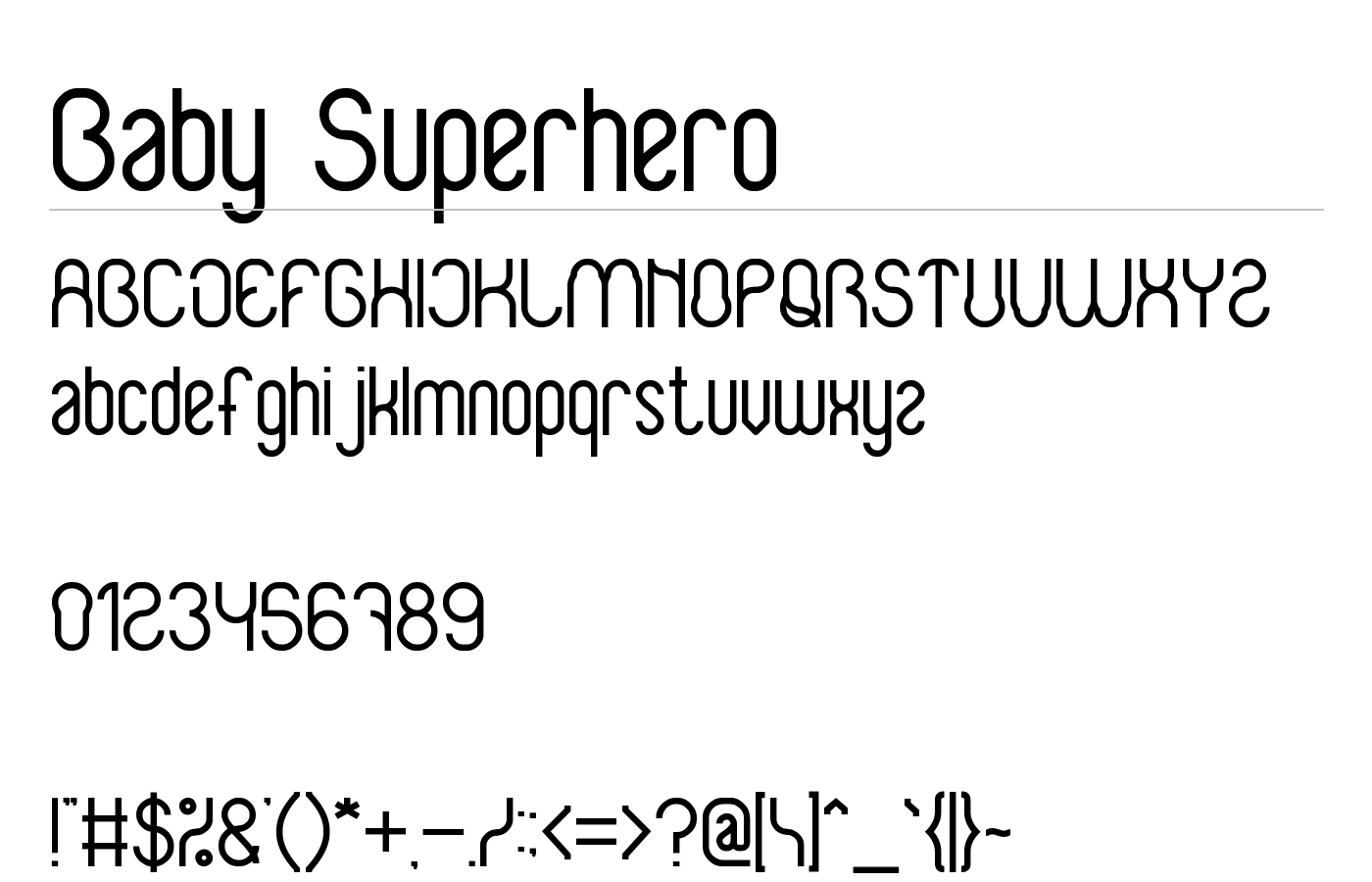
Baby Superhero is a playful, narrow sans serif font with a modern and whimsical feel. Its rounded, slightly quirky letterforms feature consistent stroke weight and unique character shapes that give it a friendly and youthful personality, perfect for children's branding, fun packaging, or lighthearted headlines. The font’s distinct style adds charm while maintaining legibility, making it ideal for creative projects that want to convey energy and approachability.
Baby Superhero Font
About Baby Superhero Font